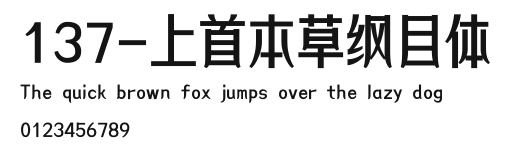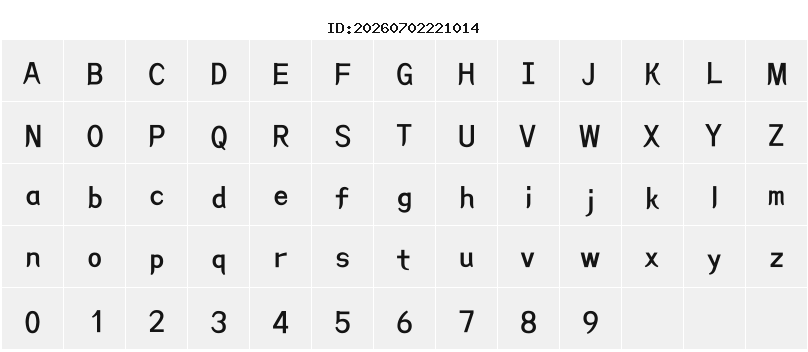
137-上首本草纲目体 Preview
About 137-上首本草纲目体.ttf
137-上首本草纲目体.ttf is a modern, elegant sans-serif font designed for ultimate readability and visual harmony. Perfect for branding, headlines, web design, and print materials.